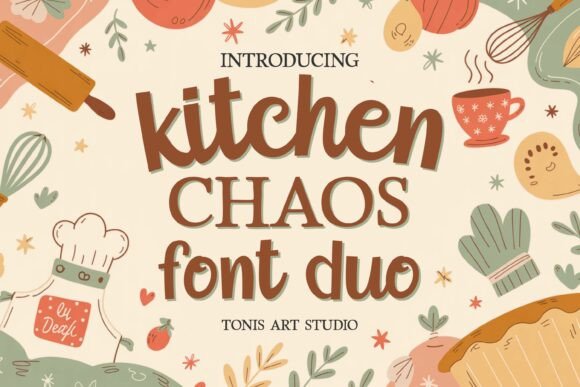
Kitchen Chaos Font Duo for Digital Designers
When you spend your days building websites, landing pages, and digital brand experiences, you learn that typography is not decoration—it is structure. The right font pairing does the heavy lifting of visual hierarchy, brand tone, and user trust before a single word is read. Kitchen Chaos is a font duo built for exactly that kind of work. It combines a playful handwritten script with a rustic serif, creating a typeface system that feels both handcrafted and dependable. For anyone designing farmhouse-inspired storefronts, recipe blogs, artisanal product pages, or cozy lifestyle brands, this is a tool worth understanding on a practical level.
What Kitchen Chaos Brings to a Digital Layout
Visually, Kitchen Chaos walks a line between warmth and structure. The handwritten half carries a relaxed, imperfect rhythm that reads as authentic rather than messy. The serif side offers solid footings—good serif proportions, clear contrast, and a grounded feel that keeps the overall pair from floating into pure whimsy. Together, they give you two distinct voices for the same brand identity. That matters in web design because you rarely need one font to do everything. You need a headline voice and a body voice, sometimes a call-to-action voice, and they all need to feel like they belong in the same room. Kitchen Chaos delivers exactly that kind of cohesion.
The personality here is distinctly farmhouse, but not in a staged or overly themed way. It leans into warmth, handmade quality, and approachability. For a digital designer, that means this font duo works best for brands that want to feel personal without losing professionalism. Think of a boutique online store selling kitchen tools, a coaching website centered on home cooking, or a course sales page for a lifestyle program. Kitchen Chaos signals that the person behind the site cares about craft and connection.
Where Kitchen Chaos Performs Best in Web Layouts
In a typical digital layout, you have a clear hierarchy: hero headline, section headings, subheadings, body copy, and small UI elements like buttons and labels. Kitchen Chaos is not a workhorse body font for long paragraphs. The handwritten script is too expressive for sustained reading, and the serif, while readable, shines brightest at medium to large sizes. The smartest use is to reserve the script for hero titles, bold section headers, logo text, and decorative accents. The serif can handle subheadings, short descriptive text, pull quotes, and supporting typography in sidebars or feature blocks.
For call-to-action buttons, the serif weight works well when set at a readable size with generous letter spacing. The script can be used sparingly in CTAs if the button text is short, such as a single word like "Join" or "Shop," but keep an eye on contrast. On dark backgrounds or image overlays, test both fonts carefully. The script has thinner strokes that can get lost against busy photography. A solid color overlay or a soft shadow is often enough to maintain legibility. The serif, with its stronger stems, handles background texture much more reliably.
Readability and Responsive Behavior Across Devices
Mobile-first design forces every font decision under scrutiny. Kitchen Chaos holds up well in responsive layouts when you respect its size limits. At screen widths below 600 pixels, the script should rarely drop below 24 pixels for a headline, and even then, test with your actual content. Long headlines in script can become hard to scan on small screens. Keep script headings to three to five words maximum. The serif can go smaller—around 16 to 18 pixels for subheadings—and remains readable at that size because of its clear letterforms and decent x-height.
On light backgrounds, both fonts maintain strong contrast. On dark backgrounds, increase the weight if alternates are available, or use a semi-transparent overlay behind the text to ensure the strokes do not blend into the background. For image overlays, always test the script version against the specific photo. A dark gradient at the bottom of a hero image is a safe, consistent fix that does not compromise the visual style.
For body copy, you will want to pair Kitchen Chaos with a simple sans serif. The serif in the duo can work for short body blocks if you set it at 18 pixels or larger with generous line height (1.5 to 1.7), but for longer paragraphs on a blog or course page, a neutral sans serif will carry the readability load. This is not a limitation—it is a design choice that preserves the character of Kitchen Chaos where it matters most.
Practical Examples for Digital Projects
Imagine building a landing page for a small-batch preserves company. The hero uses the Kitchen Chaos script for the tagline "Taste the Season" set over a warm photo of jars on a wooden table. Below that, the serif handles the feature headlines: "Handpicked Ingredients" and "Small Batch Recipes." A clean sans serif handles the product descriptions and the Add to Cart button. The visual hierarchy is clear, the brand feels cohesive, and the fonts guide the eye naturally from emotion to information. That is the kind of layout where Kitchen Chaos earns its place.
For a cooking course sales page, the script works well for the course name and a short motivational line at the top. The serif can structure the module breakdown and instructor bio. The checkout section benefits from the serif's professional tone, which reinforces trust at the point of purchase. In a digital brand kit, Kitchen Chaos can anchor the logo, pair with a minimal sans serif for collateral, and carry the brand voice across social media graphics, email headers, and webinar slides.
In the end, Kitchen Chaos is a tool that rewards intentional use. It brings personality to digital spaces that often lean too clinical, and it does so without sacrificing the readability and structure that web design demands. For any farmhouse, food, or lifestyle brand that needs to feel both handmade and professional, this font duo deserves a close look.